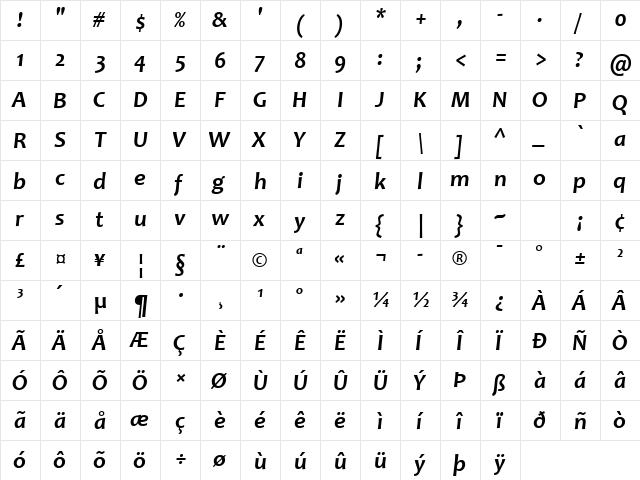
Candara Bold Italic
Design Context for Candara Typeface
Candara takes a measured approach to typography — its balanced proportions and neutral character make it a reliable workhorse for both digital and print work. The dynamic lean of this cut emphasises speed and emphasis in any layout. The heavy weight commands attention and anchors typographic hierarchies.
Pro Tip: Use Candara for emphasis, pull quotes, and subheadings where its slanted energy can add rhythm to the layout.